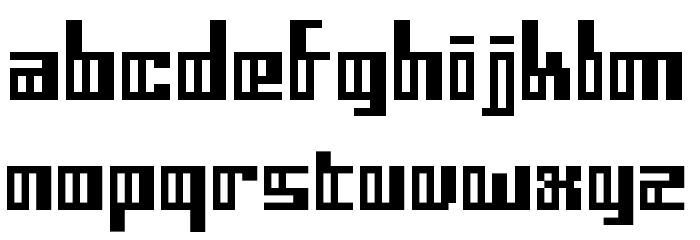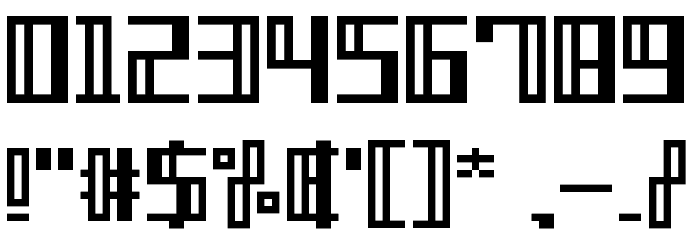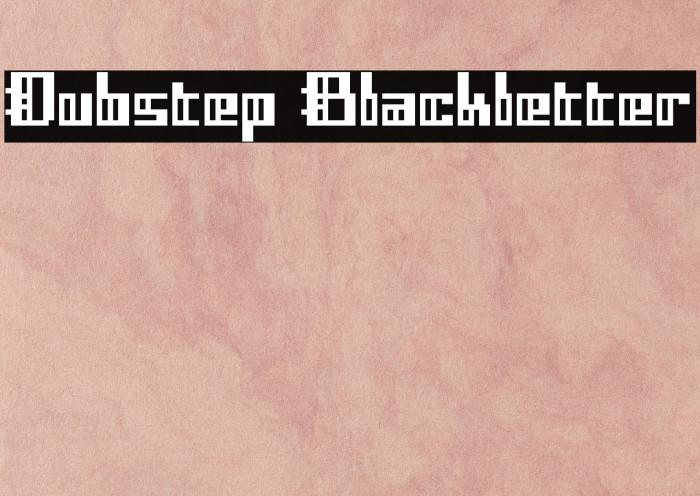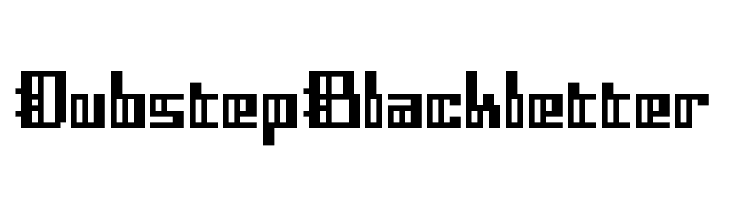
Dubstep Blackletter Font
This font exhibits a bold and striking appearance, characterized by its blocky, geometric shapes and high contrast between thick and thin strokes. The uppercase letters are particularly distinctive, with a pixelated, almost digital aesthetic that gives it a modern edge. The lowercase letters maintain this style, offering a cohesive look across the typeface. Numbers and special characters follow the same design principles, ensuring consistency throughout. The overall style is reminiscent of retro digital displays, making it both unique and eye-catching.
A bold, geometric font with a pixelated, digital aesthetic.
- Proposed Projects: Ideal for projects that require a modern, digital look, such as tech branding, video game titles, or electronic music album covers.